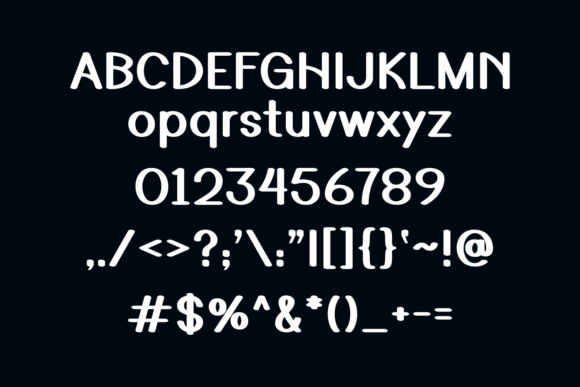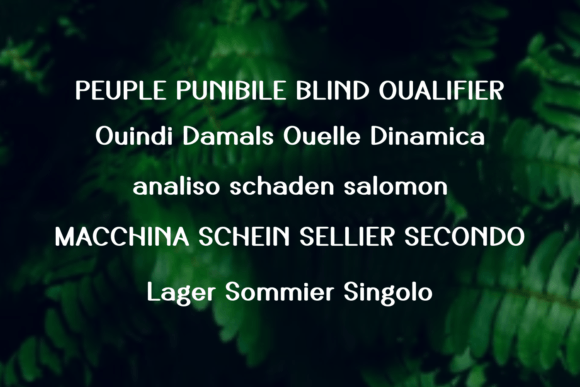
Introduction to Hankura Font
Have you ever found yourself stuck in a creative rut, scrolling through design resources, searching for that perfect font to elevate your project? I know I have. It’s like hitting the jackpot when you stumble upon something that speaks to you, something that sets your imagination ablaze.
That’s exactly what happened when I discovered the Hankura Font. Its unique sans-serif style is a game-changer for any designer looking to add a touch of sophistication and elegance to their creative project. With its clean lines and transparent background, this font is a design resource that’s sure to impress.
Whether you’re working on a high-quality design project or simply looking for a free download to spice up your portfolio, the Hankura Font is an invaluable asset that’s sure to take your work to the next level.
Key Features of Hankura Font
- High-quality font design, perfect for creative projects and designs.
- Transparent background, allowing for seamless integration into designs.
- Designed to be versatile and stylish, making it an excellent design resource for various creative projects.
Honest Review: Hankura Font
Here are the things that work well for this design resource: ✨ Unique style that adds a creative touch to any project, ✨ Smooth and consistent strokes, and ✨ Transparent background that makes it easy to use with any background image or color.
- Highly customizable with various font sizes and styles.
- Can be easily used in various creative projects such as logos, graphics, and digital art.
- Supports a wide range of languages, making it a versatile design resource.
However, there are a few limitations to consider: ⚠️ Limited number of font styles and variations, ⚠️ May not be suitable for very large or complex designs, and ⚠️ Can be a bit difficult to read in certain font sizes.
Tips for Getting the Most Out of Hankura Font
Use the Hankura Font in combination with a transparent background to create a unique and eye-catching design. Experiment with different font sizes and colors to find the perfect look for your creative project.
The Hankura Font is a versatile design resource that can be used in a variety of creative projects, including logos, branding materials, and marketing campaigns. Its high-quality design and transparent background make it an ideal choice for designers looking to create unique and visually appealing designs.